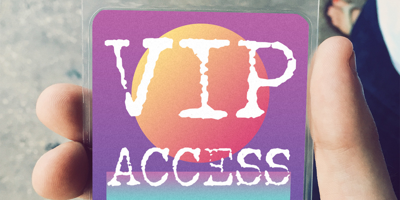
Summer Fruits Font
Summer Fruits Font Free Download: A Fun and Playful Typeface for Vibrant Designs
Looking to add a playful touch to your designs? Summer Fruits Font is a vibrant and fun typeface that’s perfect for creative projects. With its bold, whimsical style and quirky letterforms, this font adds personality and energy to anything from logos and posters to invitations and social media graphics.
In conclusion, the Summer Fruits Font Free Download is a great way to bring a fun and fresh look to your creative projects with a lively, playful typeface.